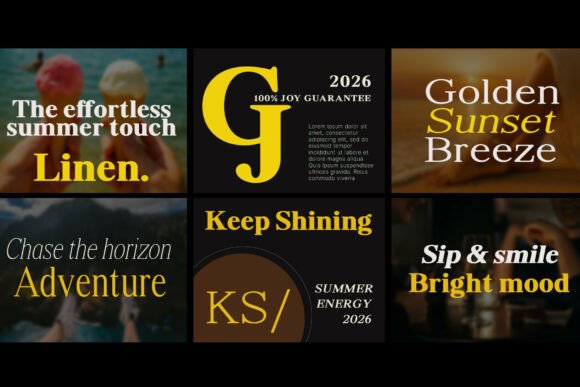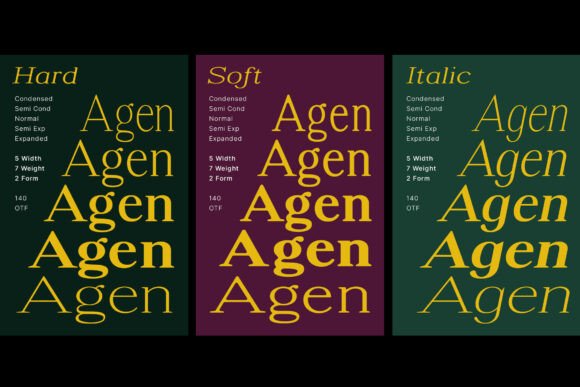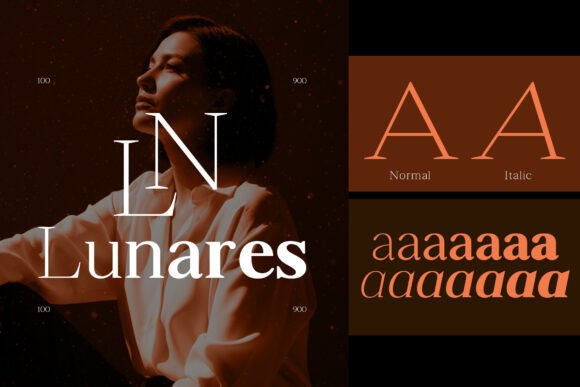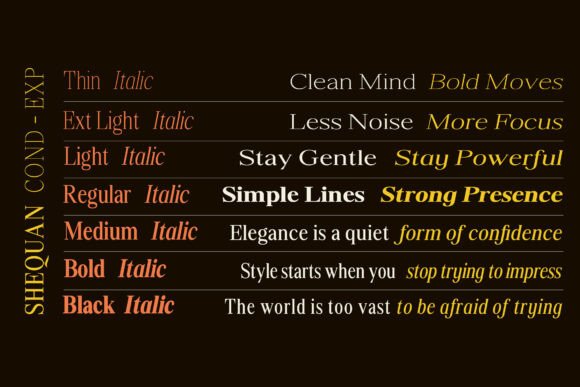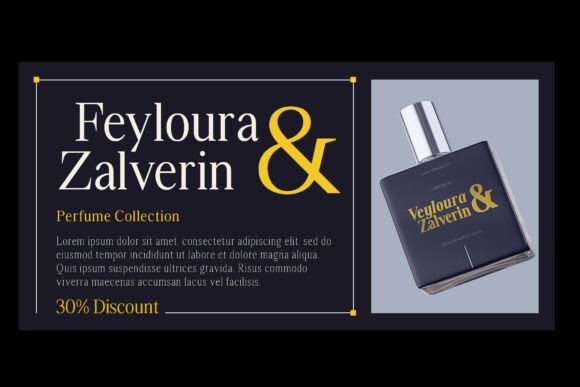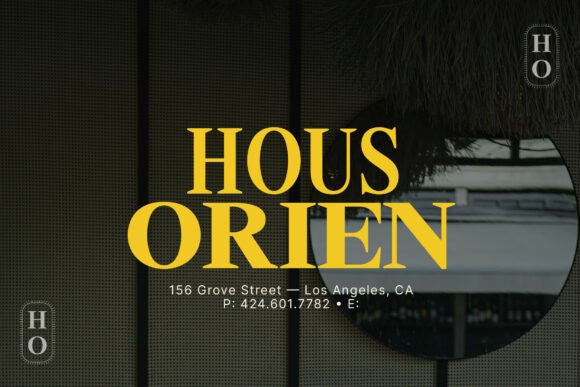
Introduction to Shequan Font
Have you ever been working on a design project, pouring over endless options for the perfect font, only to find yourself stuck in a sea of sameness? The search for that one special font can be a frustrating and time-consuming process, but what if I told you there’s a game-changer in the design world that’s about to make your life a whole lot easier?
Enter the Shequan Font, a stunning modern serif font that’s poised to elevate your design projects to new heights. With its elegant classic touch, balanced thick-thin contrast, and refined serif details, this font is the epitome of luxury and sophistication. Whether you’re working on a premium branding project, creating a magazine layout, or designing product packaging, the Shequan Font is the perfect addition to your design arsenal.
As a valuable resource for designers, the Shequan Font offers unparalleled versatility, with 140 styles to choose from, including 7 weights, 5 widths, and 2 forms with matching italics, as well as ligatures and multilingual support. This means you can achieve a high-quality, transparent background look that’s perfect for creative projects, all with the click of a button.
Key Features of Shequan Font
- Unique characteristics: bold, modern, and elegant design, making it perfect for various creative projects, including logos, branding, and typography.
Honest Review: Shequan Font
I recently stumbled upon the Shequan Font and was excited to give it a try. As a designer, I’m always on the lookout for high-quality design resources to elevate my creative projects. The Shequan Font did not disappoint!
Here are a few things that work well with the Shequan Font:
- ✨ Its unique, modern design makes it perfect for creating a bold and eye-catching aesthetic.
- ✨ The font comes in a variety of styles, from bold and playful to elegant and sophisticated.
Overall, I’m impressed with the Shequan Font and would definitely consider using it in future creative projects. Its high quality and unique design make it a valuable addition to any designer’s toolkit.
Tips for Getting the Most Out of Shequan Font
For the best results, use Shequan Font in conjunction with a high-quality design project. Experiment with different font sizes and styles to create a unique and creative look. You can also use the font in conjunction with other design elements, such as images and graphics, to add depth and interest to your project.